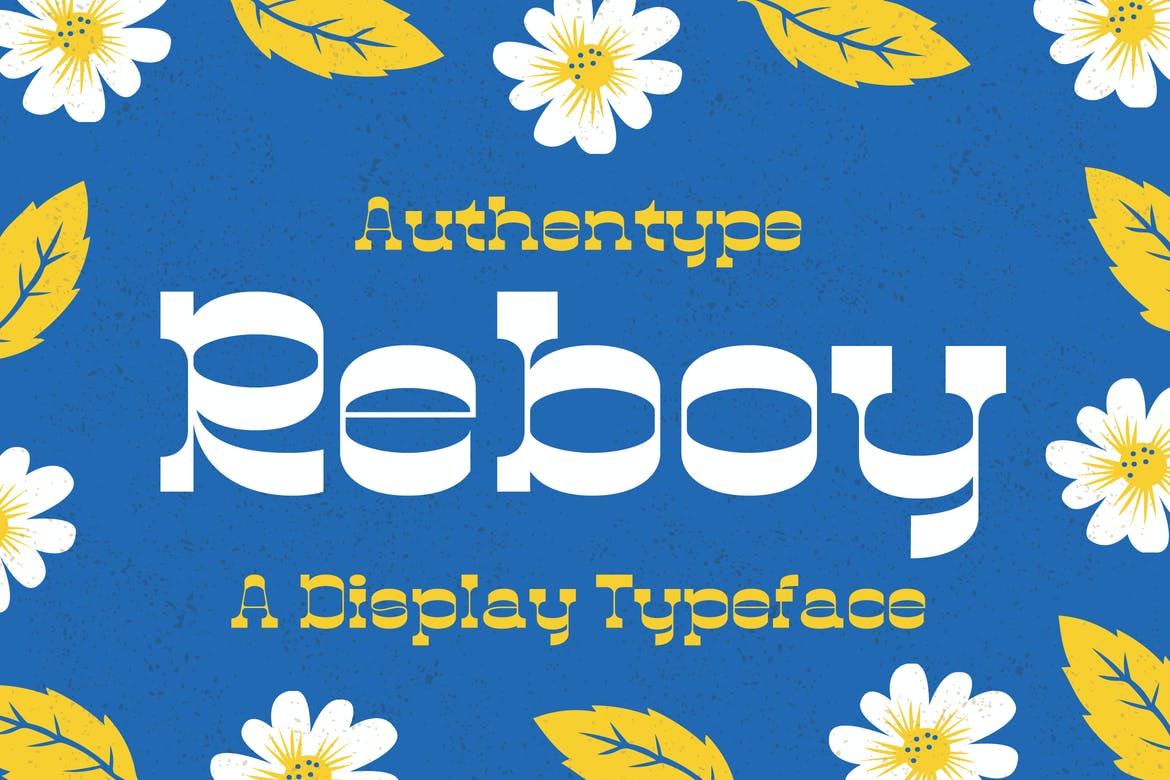
Reboy – Display Typeface Font
Reboy-Display Typeface refers to cultural products such as music, art, literature, fashion, dance, and movies in the 1980s, which were consumed by most people in society. Very suitable for logos, titles and headings.
• Standard glyphs uppercase and lowercase letters
• Numerals, a large range of punctuation and ligatures.
• Multilingual
• Fonts include multilingual support for; ä ö ü Ä Ö Ü ß ¿¡